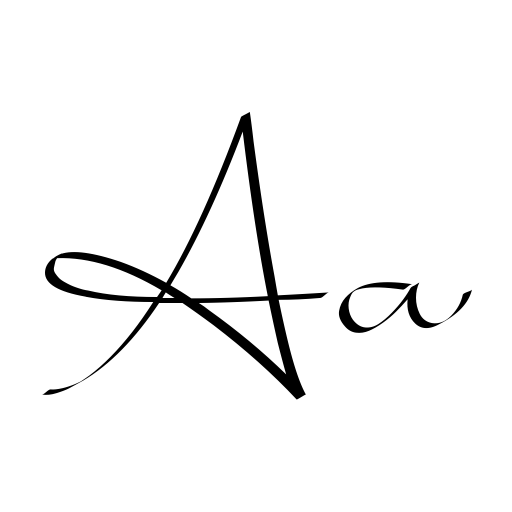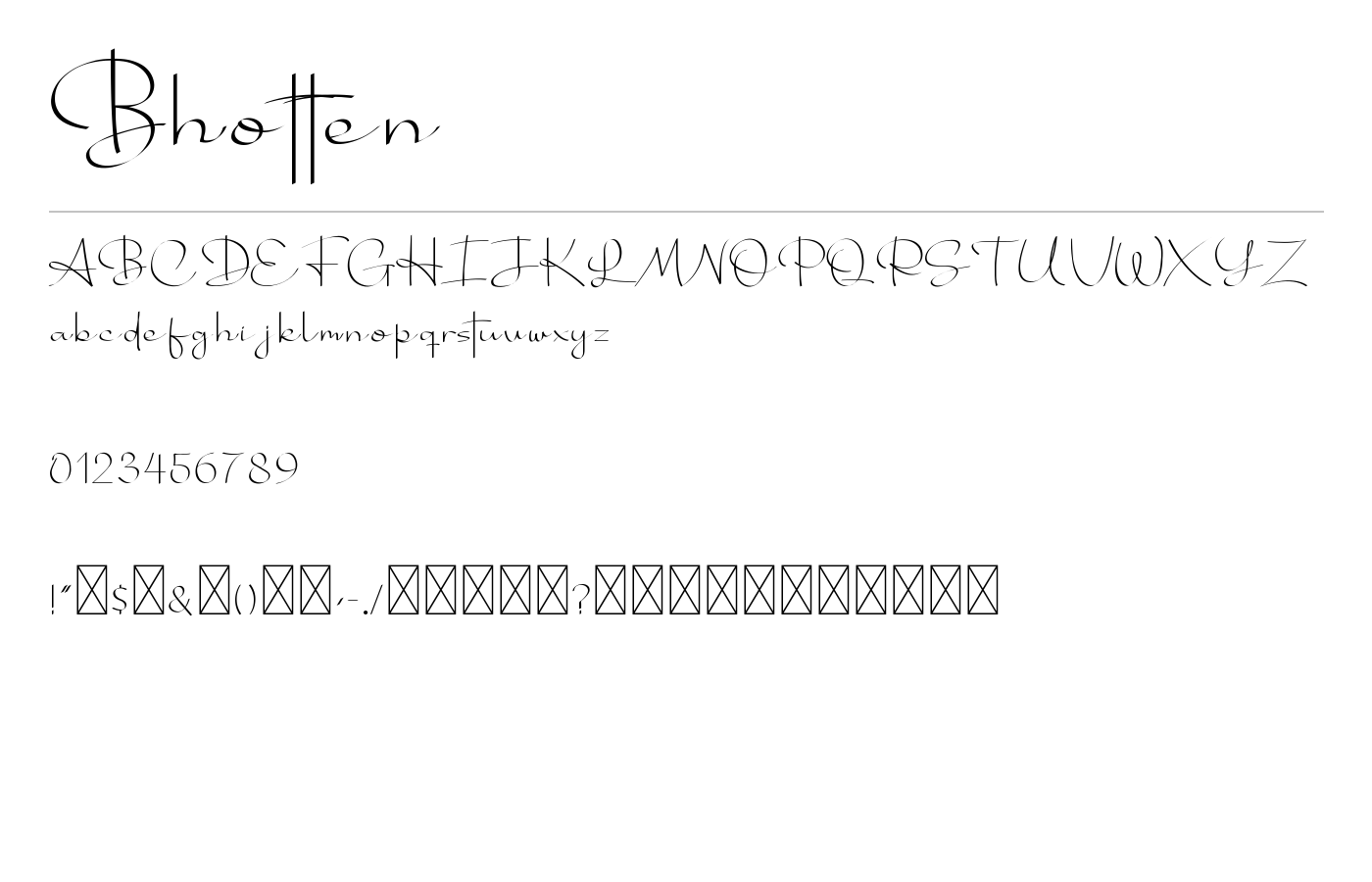
Bhotten is a delicate, handwritten script font with light, airy strokes that give it an elegant and whimsical feel. Its thin lines and refined curves make it ideal for creative projects, invitations, and branding that seek a personal, artistic touch. This font works best in decorative headlines or logos where a graceful, sophisticated style is desired.
Bhotten Font
About Bhotten Font
| Font family | Bhotten Font |
| Designer | Klakon Studio |